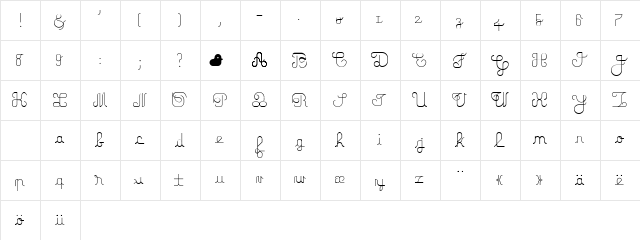
vespertine Regular
Design Context for vespertine Typeface
vespertine is a composed and adaptable typeface that performs quietly and consistently across a wide range of design contexts.